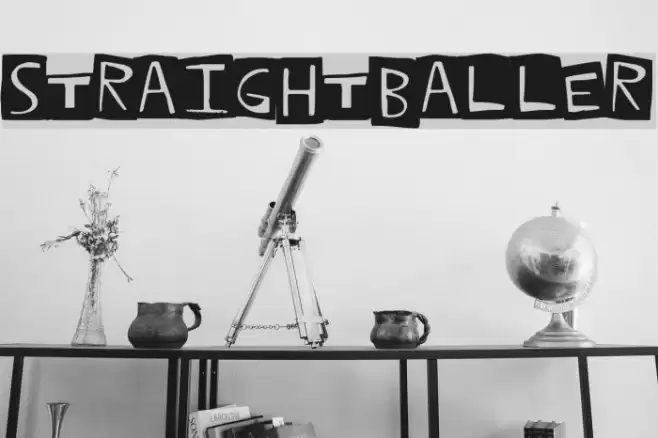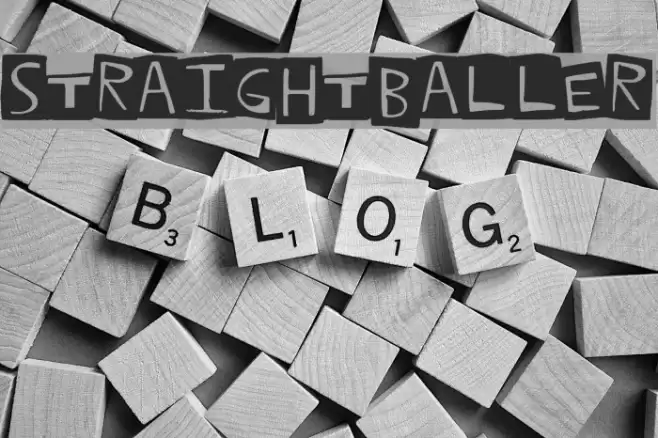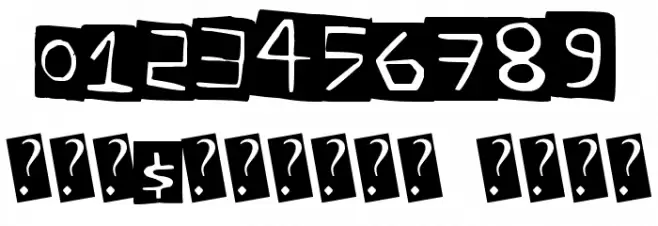
StraightBaller Font
StraightBaller Description
This font features a bold and playful design with a hand-drawn aesthetic. Each character is enclosed in a black rectangular background, creating a striking contrast with the white letters. The letters are slightly irregular, adding to the casual and informal feel. The uppercase and lowercase letters maintain a consistent style, while the numbers and special characters follow the same playful theme. This font is ideal for projects that require a fun and energetic vibe, such as children's books, posters, or creative branding.
A bold, playful font with a hand-drawn aesthetic and high contrast from Decorative fonts.
- Proposed Projects: Ideal for children's books, playful posters, creative branding, and informal invitations.
- Overall Style: Playful, Hand-drawn